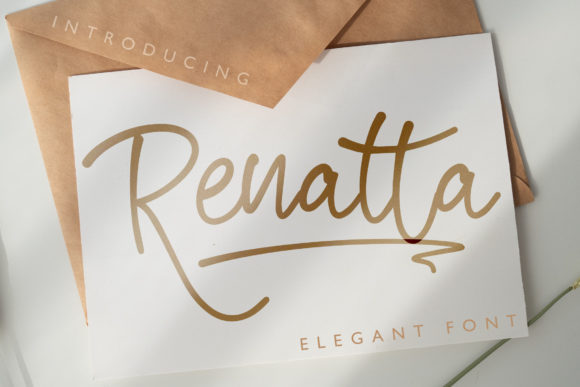
Renatta Script: Crafting Timeless Brand Identities
In the crowded landscape of modern typography, finding a typeface that feels both personal and professional is a rare discovery. Many designers and business owners search for a font that does more than just display words; they need a tool that conveys emotion, heritage, and sophistication. This is where Renatta Script enters the conversation. It is not merely a digital file to be installed; it is a carefully crafted design asset that brings a vintage, hand-lettered aesthetic to contemporary projects. Defined by its smooth curves and balanced weight, this typeface offers a bridge between the raw energy of a handwritten font and the structured elegance required for high-end branding.
What makes Renatta Script particularly compelling is its versatility within the "vintage" niche. While many script fonts lean too heavily into casual or overly formal extremes, this font strikes a middle ground. It possesses the fluidity of a classic sign painter’s work, yet it maintains a legibility that is often lost in highly stylized scripts. For the creative professional—whether a seasoned graphic designer, a small business owner launching a new product line, or a blogger designing their next header image—this typeface provides a distinct personality. It suggests a story, a history, and a level of care that generic sans-serif fonts simply cannot replicate.
The Visual Anatomy of a Vintage Styled Script Font
To truly understand the value of a premium font, one must look beyond the surface and examine its construction. Renatta Script is characterized by a "well-balanced" structure. In typography terms, this means the visual weight is distributed evenly across the characters, preventing the text from looking top-heavy or unstable. The strokes vary in thickness, mimicking the pressure of a nib or brush, which is a hallmark of high-quality script fonts. This variation creates a rhythm in the text that guides the eye naturally from one letter to the next.
The "smooth curves" mentioned in the font's description are not just marketing speak; they are functional design elements. Jagged or sharp vector paths can make a logo appear amateurish or harsh. In contrast, the fluid transitions in Renatta Script create a sense of luxury and approachability. This makes it an ideal candidate for logo design, particularly for brands that want to evoke a sense of craftsmanship, artisanal quality, or timeless elegance. Whether you are designing for a boutique coffee roaster, a fashion label, or a wedding stationery business, the visual language of this font speaks to quality and attention to detail.
Unlocking Creative Potential with PUA Encoding
One of the most practical features of Renatta Script is that it is PUA (Private Use Areas) encoded. For those outside the technical side of design, this is a significant advantage. Standard fonts are limited to the basic alphanumeric keys found on your keyboard. However, a PUA-encoded creative font includes hundreds of additional glyphs, swashes, and ligatures that are accessible through the "Character Map" on Windows or "Font Book" on Mac.
Why does this matter for your project? It allows for endless customization. You can replace a standard letter "R" or "S" with a decorative version that features an extended flourish, changing the entire mood of a word. This is particularly useful in packaging design or editorial design, where you want specific words to stand out. Instead of buying multiple fonts to achieve a unique look, you can use the built-in alternates of Renatta Script to create a custom typographic lockup that feels truly one-of-a-kind. This feature empowers crafters and designers to manipulate the text to fit specific spaces or aesthetic requirements without compromising the font's integrity.
Strategic Applications: Where Renatta Script Shines
Choosing the right typeface is a strategic decision that influences how an audience perceives a brand. Renatta Script excels in environments where brand identity and emotional connection are paramount. In the realm of fashion branding, for instance, the font’s vintage styling suggests heritage and timeless style. It works beautifully on lookbooks, clothing tags, and social media headers, providing a cohesive visual thread that ties the collection together.
For digital marketing and social media graphics, the font serves as a powerful tool for capturing attention. In a feed dominated by clean, geometric sans-serifs, the organic flow of Renatta Script stands out. It is perfect for quote graphics, promotional banners, and sale announcements where you need to convey urgency or exclusivity with a touch of class. However, it is important to note that while it is a display font, it should be used sparingly in long-form text to maintain readability.
Pairing and Hierarchy: Integrating with Other Typefaces
No font is an island, and font pairing is a critical skill in web design and print layout. Because Renatta Script has such a strong personality, it pairs best with neutral, structural typefaces. A classic sans serif font with clean lines (like a Helvetica or Montserrat) provides a modern counterpoint to the script's vintage flair. This contrast creates a clear visual hierarchy, allowing the script to serve as the headline or accent while the sans-serif handles the body copy.
Alternatively, pairing it with a sturdy serif font can enhance the vintage aesthetic, creating a layout that feels like a page from a 1920s magazine. The key is balance. If the supporting text is too decorative, the design becomes cluttered and unreadable. By using Renatta Script as the focal point and surrounding it with structured typography, you ensure that your message is both seen and understood.
Finally, understanding the licensing of design assets is crucial for professional use. Ensure that your license covers the specific applications you intend to use, whether that is for physical products like t-shirts and mugs or digital products like e-books and website templates. Renatta Script offers the kind of professional finish that elevates a project from a hobbyist creation to a market-ready product. By leveraging its vintage charm and technical flexibility, you can build a visual identity that resonates deeply with your audience and stands the test of time.